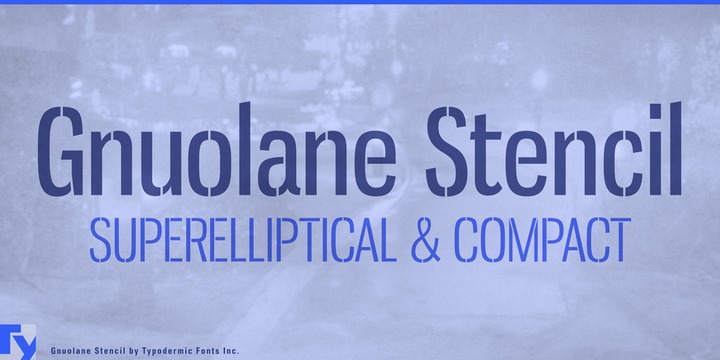
Gnuolane Stencil is a serious stencil font in five weights. While it borrows from 19th Century grotesque models, it possesses a super-elliptical sixties sneer.